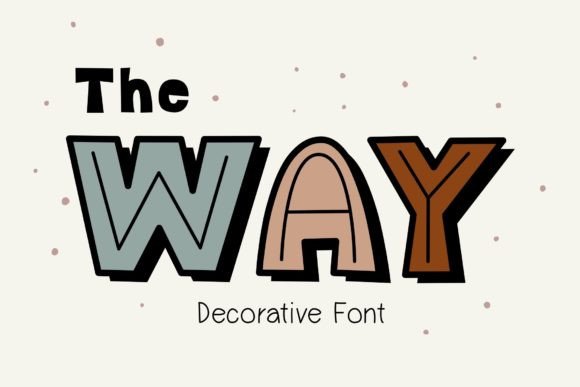
Welcome to the world of The Way Font - a stunning display font that's perfect for interior design enthusiasts, branding experts, social media gurus, and DIY enthusiasts alike! Created by the talented team at 18CC FONTs, The Way Font is a versatile and eye-catching font that's sure to elevate your design game to the next level.
Whether you're looking to create a stunning new logo, build a brand that stands out from the crowd, or add a touch of elegance to your social media profiles, The Way Font is the perfect choice for you. With its clean lines, bold style, and attention-grabbing curves, this font is the perfect way to make a statement and showcase your unique style and personality.
One of the key benefits of The Way Font is its ability to work seamlessly with a variety of design styles and color palettes. Whether you're going for a minimalist, modern look or a more traditional, vintage vibe, this font can be customized to suit your needs and help you create a look that's uniquely your own.
And if you're looking for inspiration, The Way Font is the perfect starting point. From stunning logos and branding designs to eye-catching social media graphics and crafty DIY projects, the possibilities are endless with this amazing font.